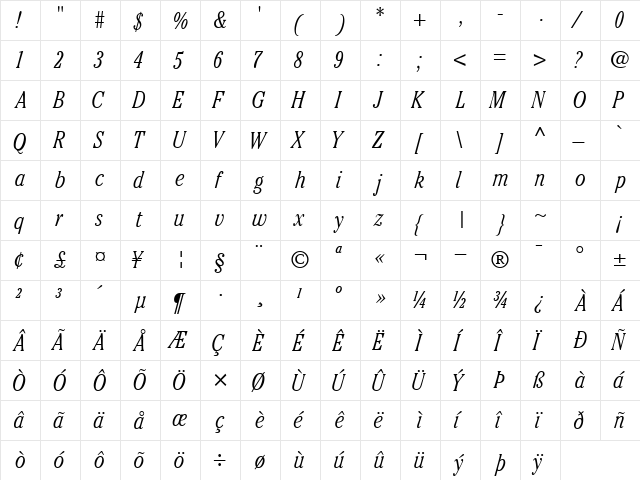
CheltenhamLightCondSSK Italic
Design Context for CheltenhamLightCondSSK Typeface
CheltenhamLightCondSSK is a composed and adaptable typeface that performs quietly and consistently across a wide range of design contexts. Its italic angle brings a sense of urgency and motion to the letterforms. The delicate stroke weight brings airiness and refinement to layouts. Its narrow stance lets it pack a punch even in space-constrained designs.
Pro Tip: Use CheltenhamLightCondSSK for emphasis, pull quotes, and subheadings where its slanted energy can add rhythm to the layout.